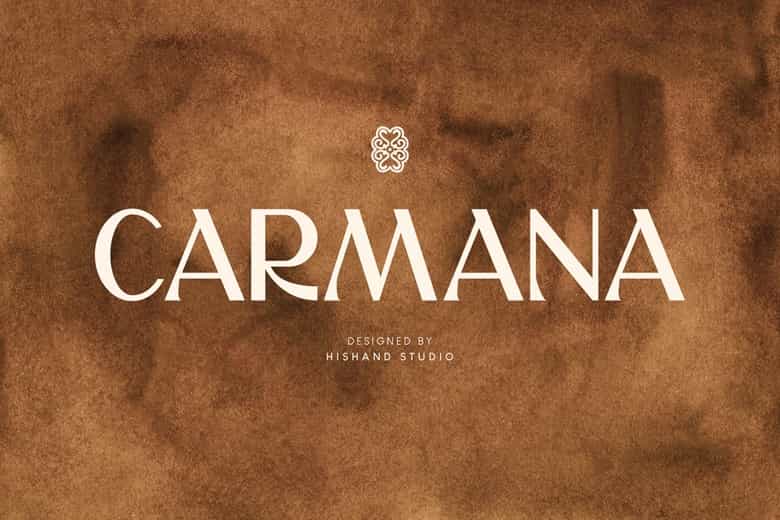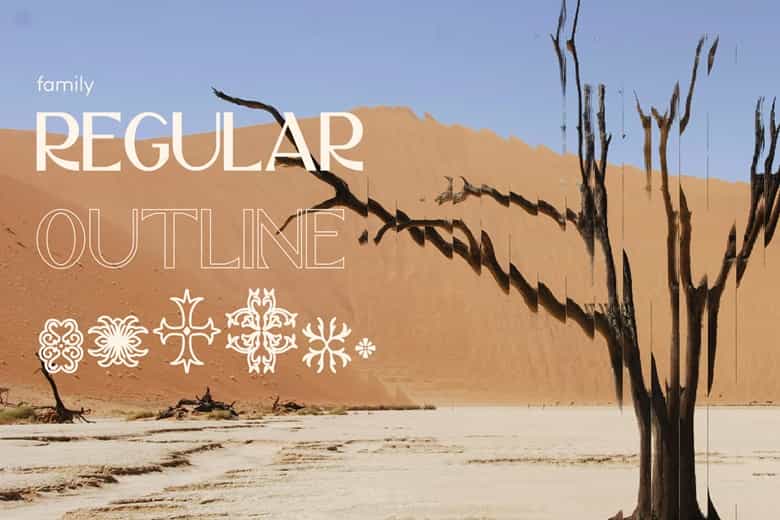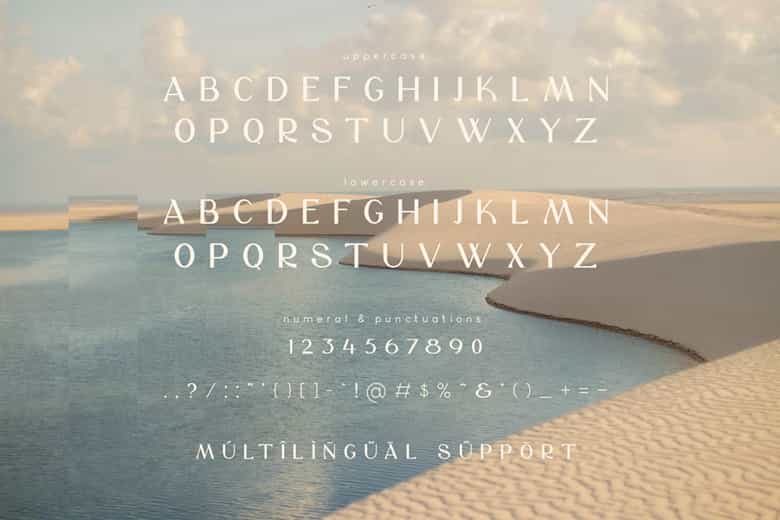
Carmana is sans display font with geometrical look and feel, its features are sharp edge, clean contour and organic curves. It is a contemporary classic sans-serif typeface that has modern geometric addition, resulting in an elegant feel. This is a perfect font for branding, editorial design, logos, and high fashion projects since the font is eradicated with elegance and exclusivity.